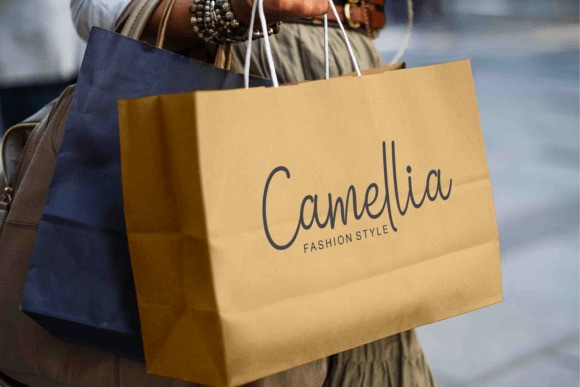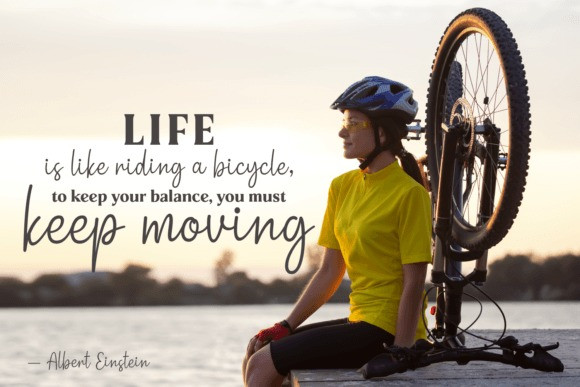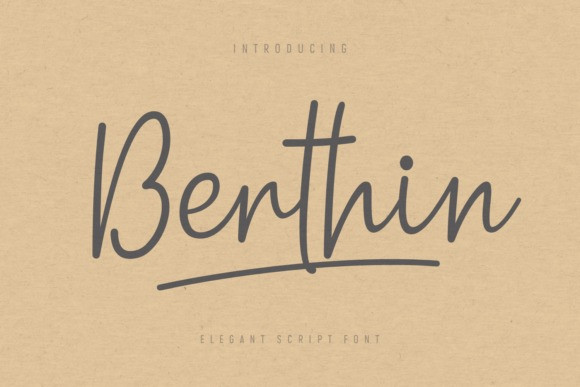
Berthin Font
Berthin is a graceful, elegant script font. Delicate and thin, this modern typeface is perfect for adding a soft note to your creations. Use it for invitations, business cards, logos, sublimation projects, and many more!